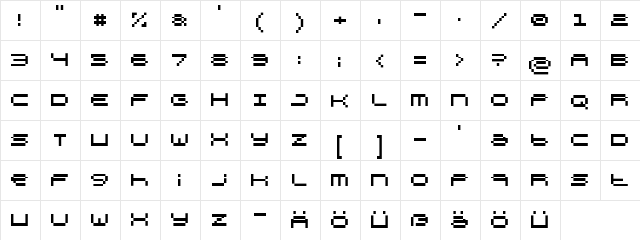
Supercollider Medium
| Foundry | Superlooper |
Design Context for Supercollider Typeface
Supercollider takes a measured approach to typography — its balanced proportions and neutral character make it a reliable workhorse for both digital and print work.